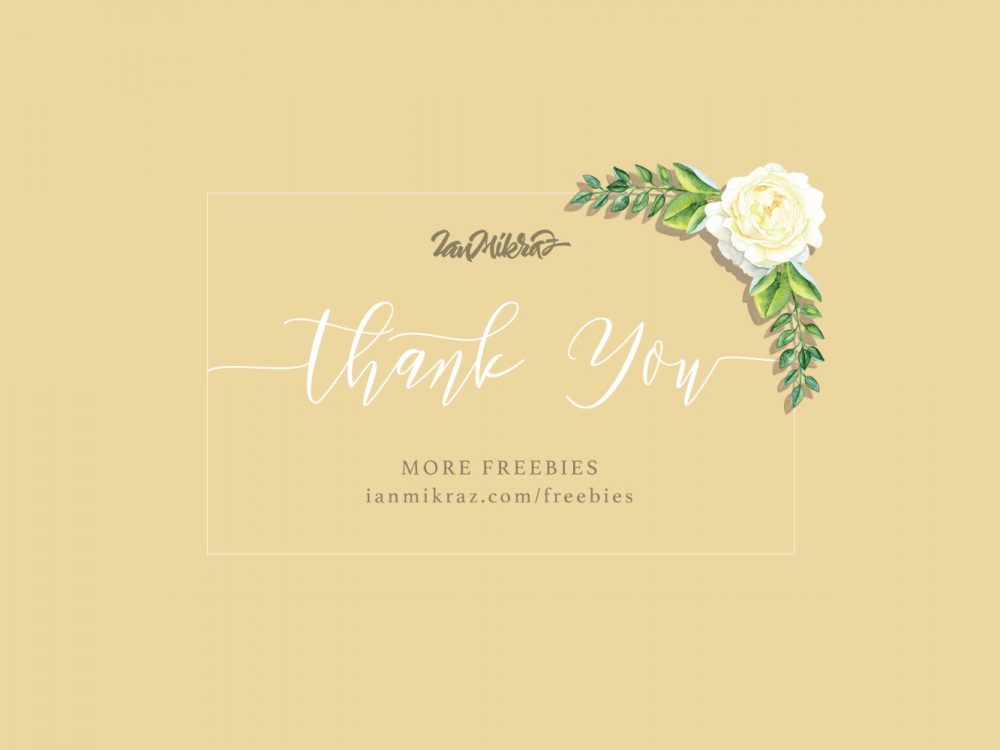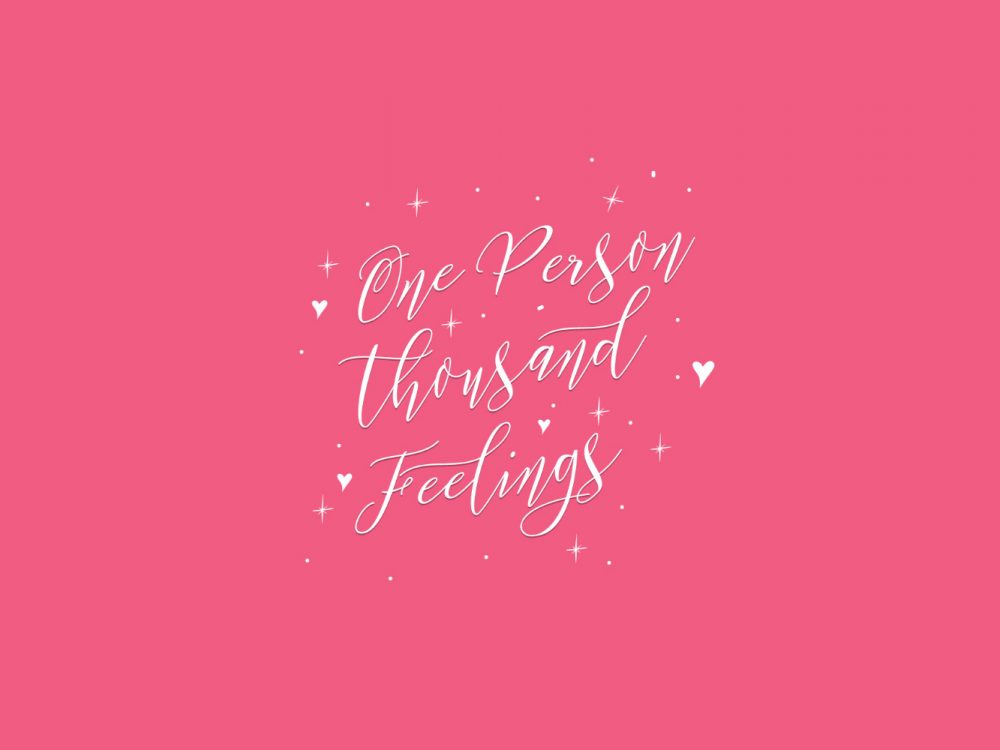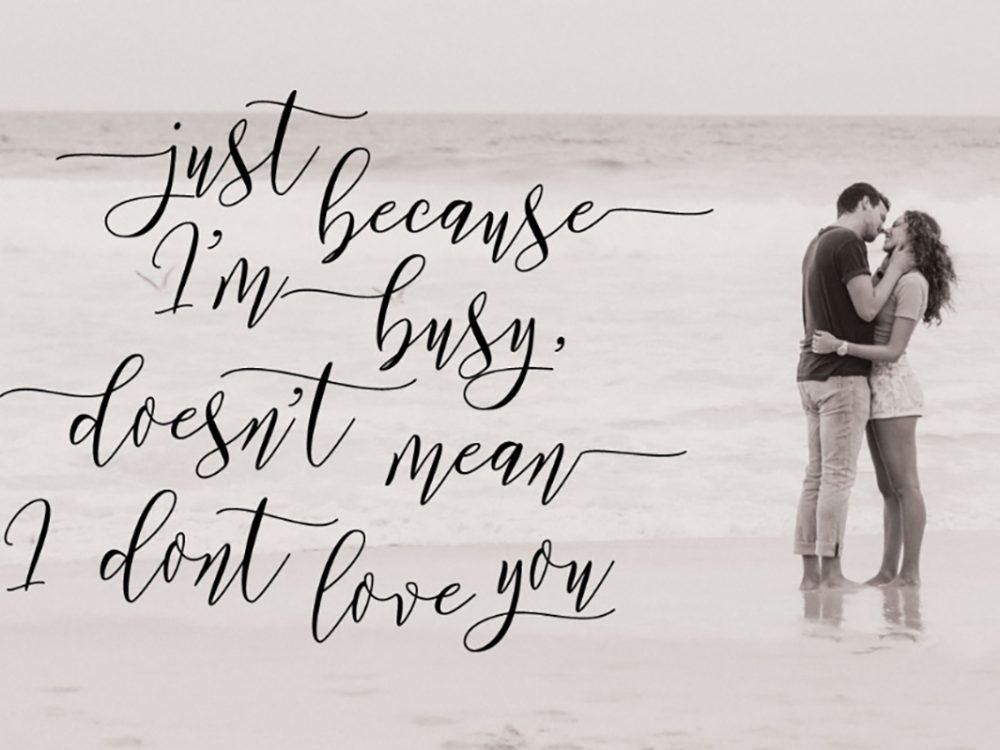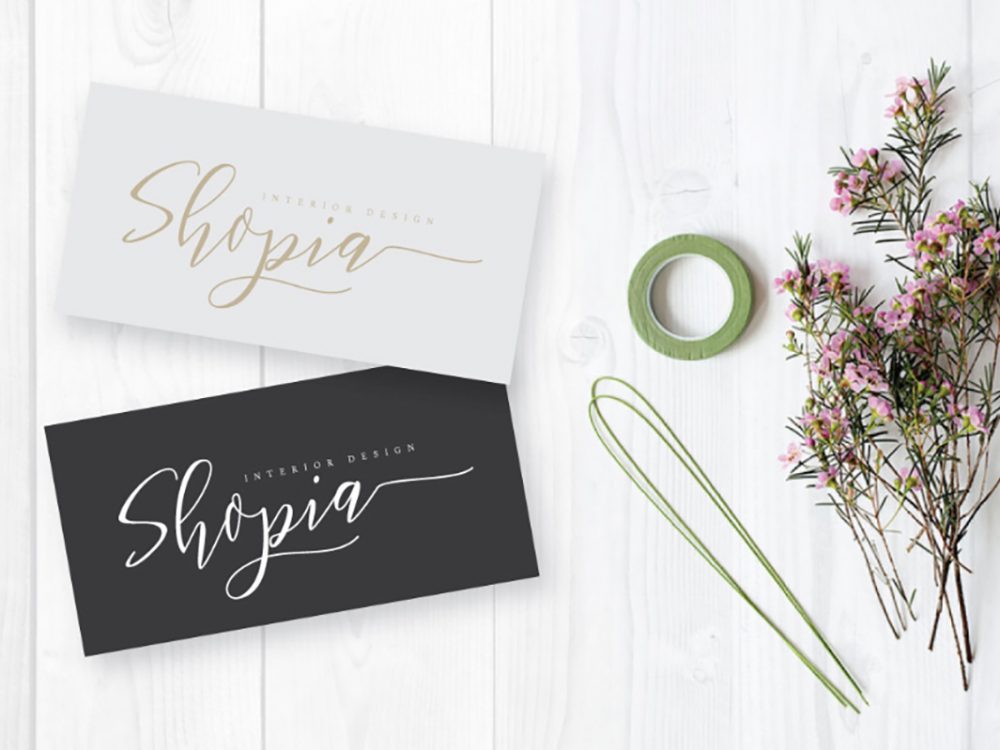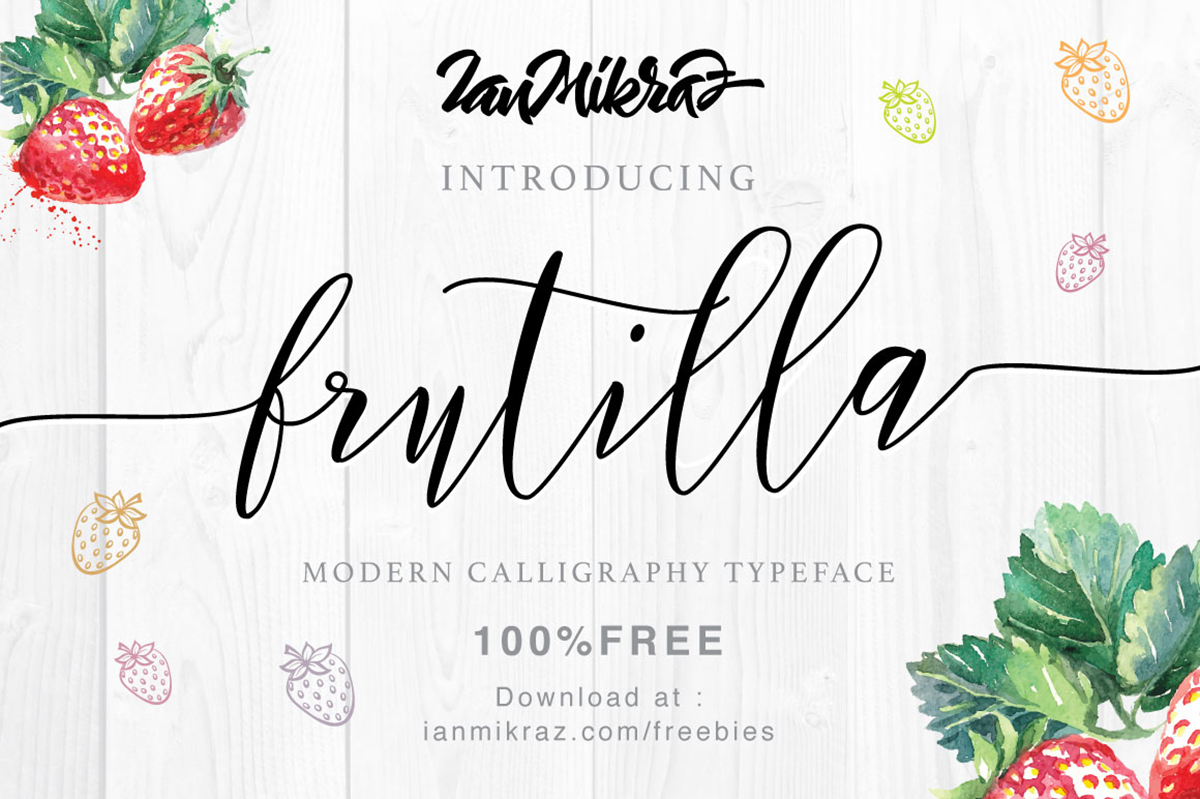
Fruitilla Modern Script Free Typeface
Fruitilla Modern Script Free Typeface is a modern interesting handwritten font is characterized by elegant design. This font will help you create memorable design projects that the scripting font is required. It can be posters, wedding invitations, postcards, branding, flyers, prints, and more.
Author: Ian Mikraz